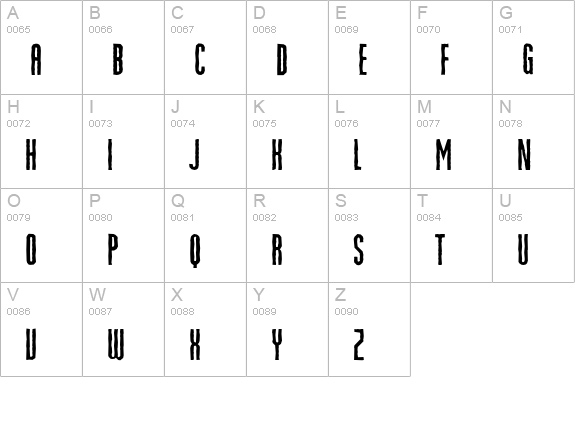
MartenCyr-GrotesqueRough Font Details
MartenCyr-GrotesqueRough is a unique and eye-catching font that is sure to make a bold statement in any design project. With its rough and jagged edges, this font exudes a sense of rawness and edginess, perfect for those looking to add a touch of urban flair to their designs. The MartenCyr-GrotesqueRough font features a distinct grotesque style, with thick and bold letterforms that command attention. Its irregular and rough texture gives it a hand-drawn appearance, adding a sense of authenticity and character to your designs. What makes this font even more appealing is the fact that it is absolutely free. Yes, you read that right! MartenCyr-GrotesqueRough is freely available to download at FontsMarket.com. This means that you can enhance your design projects without having to worry about breaking the bank. Whether you're working on a poster, logo, or social media graphics, MartenCyr-GrotesqueRough is the perfect font to add a touch of creativity and uniqueness. Its free availability makes it accessible to designers of all levels, from beginners to professionals, allowing everyone to unleash their creativity without any limitations. So why wait? Head over to FontsMarket.com and download MartenCyr-GrotesqueRough today to elevate your designs to the next level. Embrace the rawness and uniqueness of this font and bring your creative vision to life.